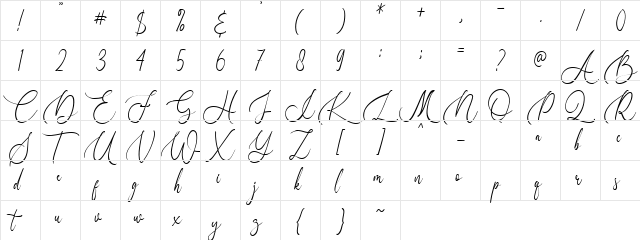
Birallina Regular
Design Context for Birallina Typeface
Birallina is a composed and adaptable typeface that performs quietly and consistently across a wide range of design contexts.